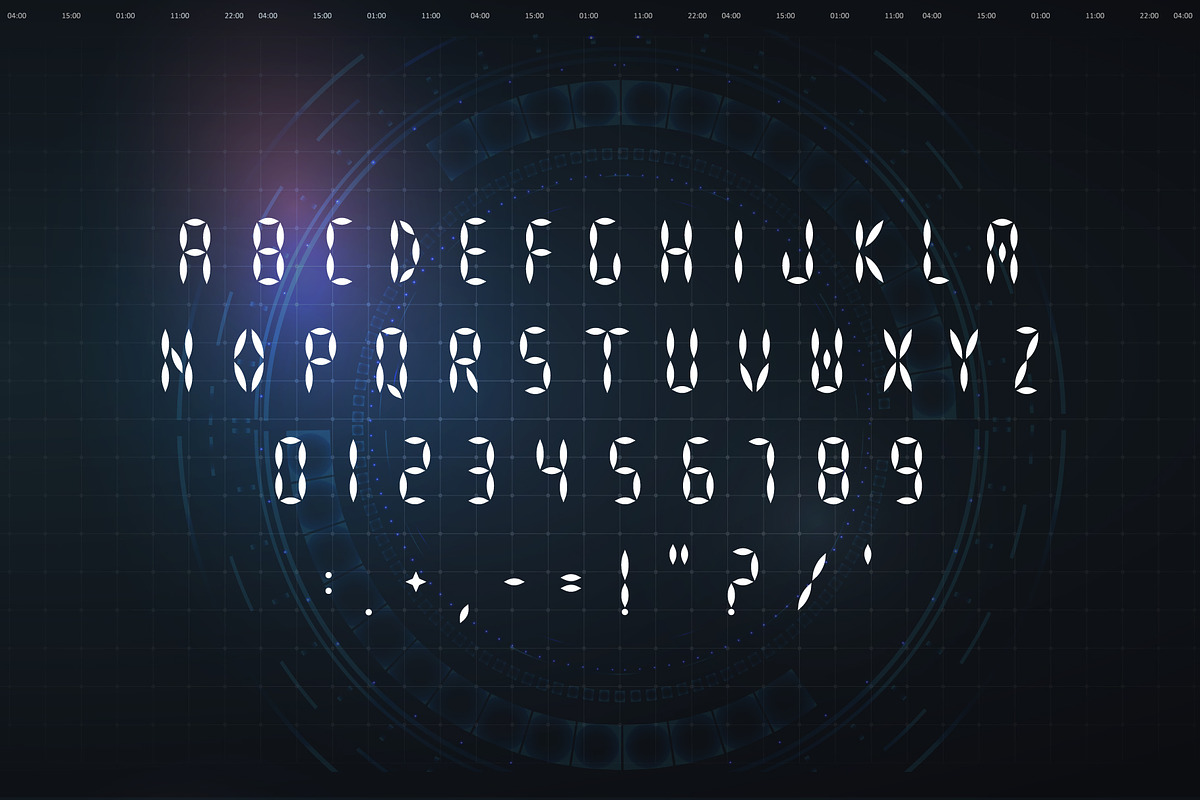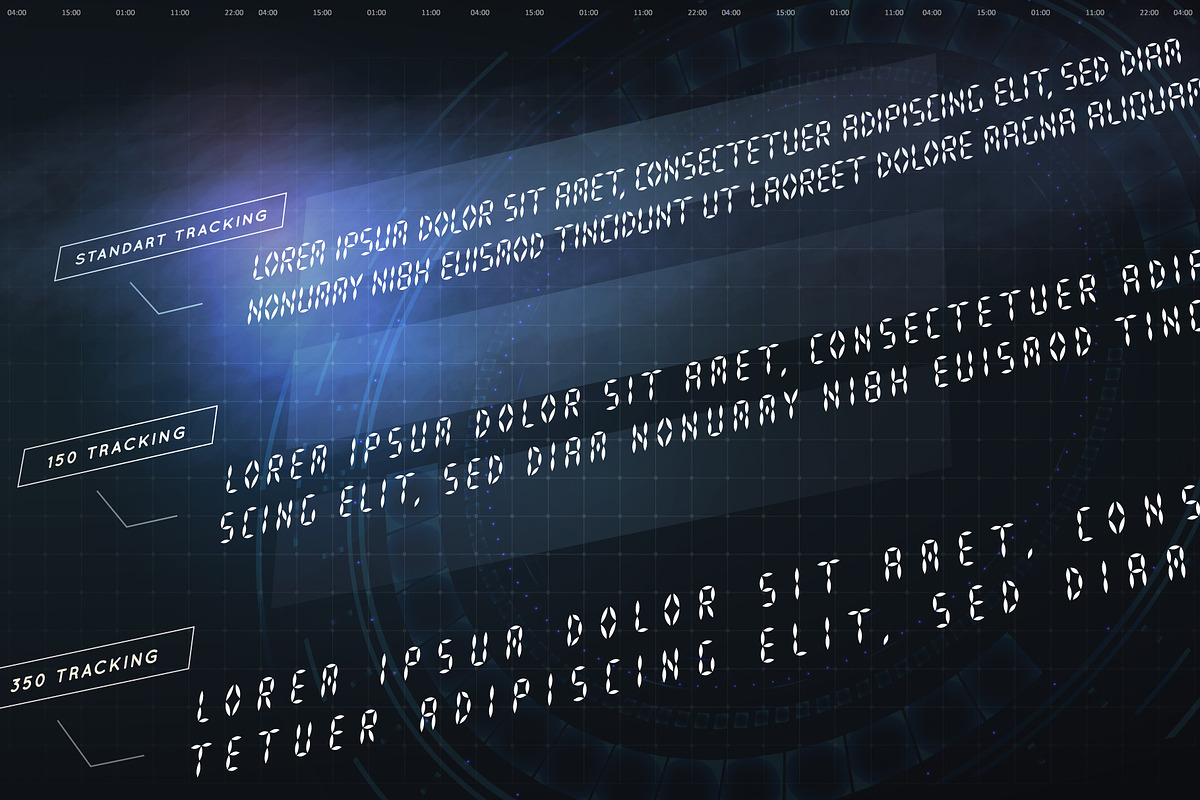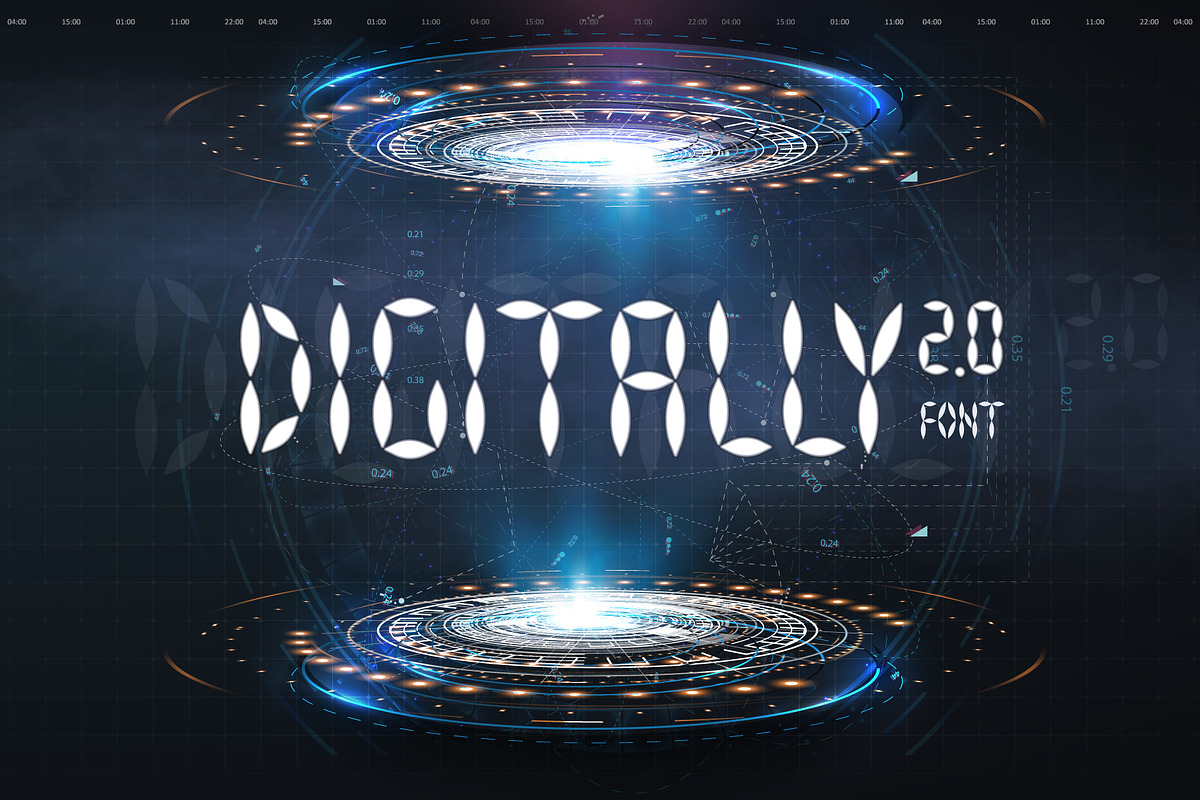
Digital Display Font for Interfaces
Introducing the "Digital Display Font"
A cutting-edge font with sharp, innovative edges designed for modern pixel-based screens. Its lightweight, digitalized design ensures both clarity and freshness, making it ideal for medical devices, electronic information panels, and sports equipment interfaces.
Medical device interfaces
Electronic information displays
Sports devices and wearables
UI/UX design for apps and websites
Futuristic branding and logos
Embrace a futuristic design experience with the Digital Display Font. Perfectly readable, functional, and stylish — try it today!